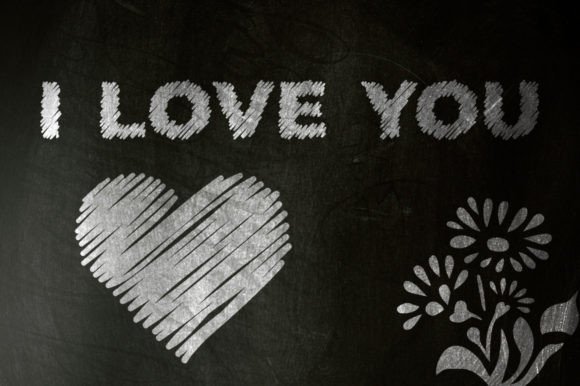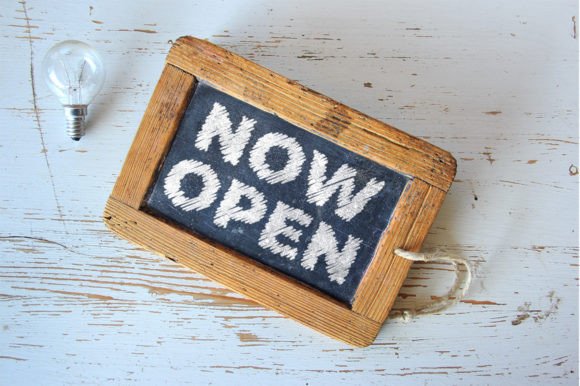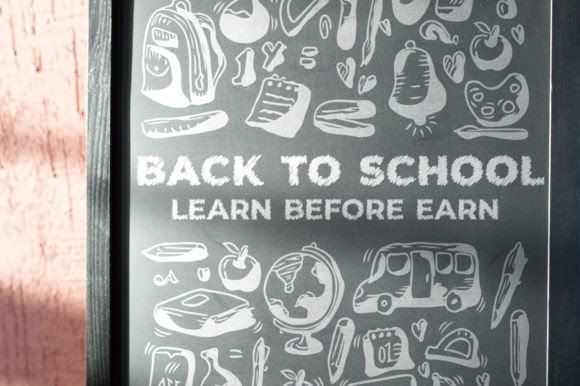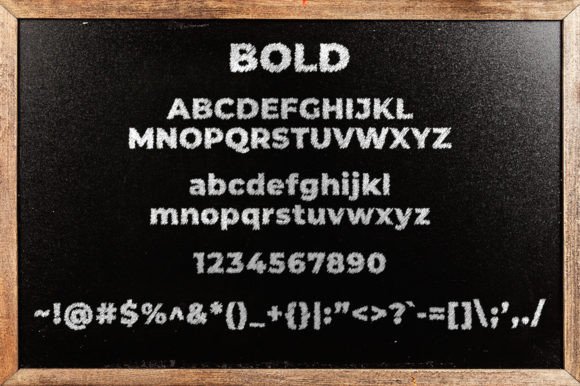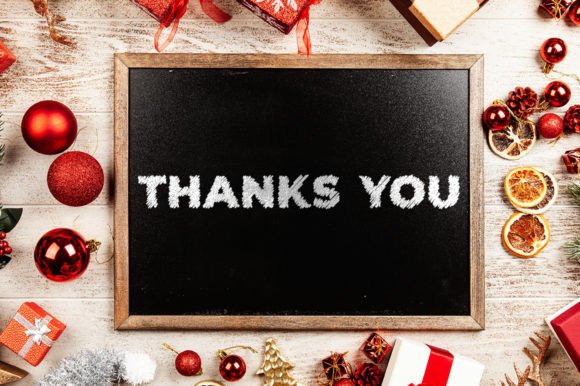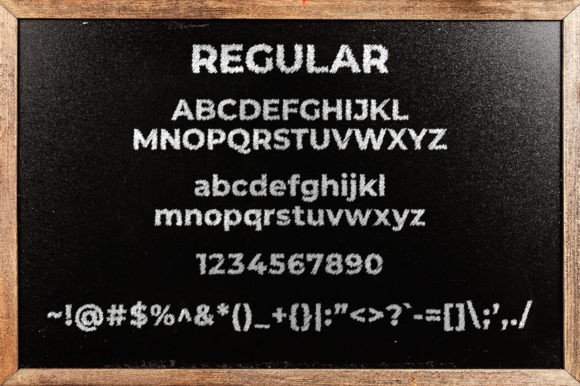
Unleashing Creativity with Chalk Font
Remember the moment when you were a child, scribbling on the sidewalk with a piece of chalk, bringing your imagination to life? It’s that same sense of carefree creativity that Chalk Font embodies, a charming display font designed to add a playful touch to your designs.
Whether you’re crafting handmade cards, creating digital art, or developing engaging presentations, Chalk Font is the perfect companion. Its cute and friendly aesthetic makes it an ideal choice for designers looking to add a personal touch to their projects. With Chalk Font, you can take your designs to the next level and make them truly unforgettable.
- Font Family: Chalk Font is a sans-serif font family designed for digital use.
- Size: The font family includes a range of weights from Thin (100) to Bold (700) to cater to various design needs.
- Unique Characteristics: Chalk Font features a clean, modern design with subtle rounded edges, making it suitable for digital interfaces, signage, and editorial content.
- Unique Hand-Drawn Style: Chalk Font has a distinct hand-drawn feel that can add a touch of personality to your designs.
- Wide Character Set: Chalk Font comes with a comprehensive set of characters, including Latin, Cyrillic, and Greek alphabets.
- Limited Expressiveness: While the hand-drawn style is charming, it can be limiting when it comes to expressing complex ideas or emotions.
- Not Ideal for Large Text: Chalk Font can become difficult to read when used in large text sizes, so it’s best to reserve it for smaller text or headings.
Chalk Font is a great choice for designers looking for a unique and eye-catching font. While it may have some limitations, its charm and expressiveness make it a valuable addition to any design toolkit.
The Chalk Font is ideal for creating a distressed or vintage look. Use it for:
- Invitations and event graphics
- Artistic and creative projects